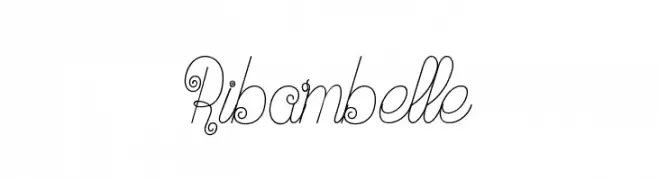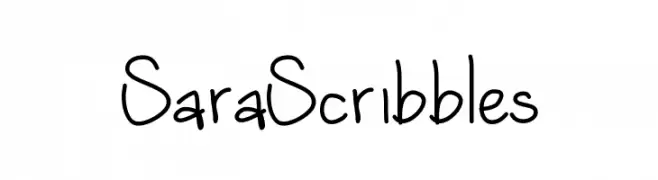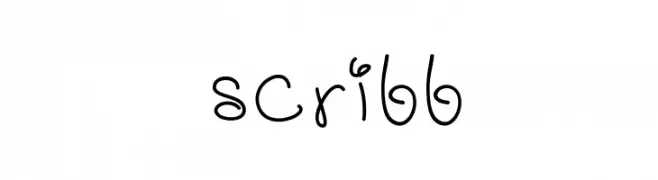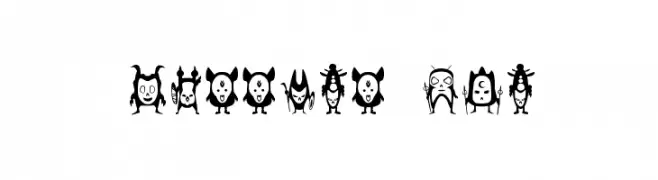
A distressed, grunge-style font with uneven edges and a hand-drawn look.
Ornamental font with tribal and geometric motifs, ideal for decorative use.
A playful, handwritten font with rounded, flowing letters and a casual style.
A playful handwritten font with a casual and friendly vibe.
A decorative dingbat font of whimsical warrior and tribal characters.
An ornate, whimsical font with intricate swirls and loops, reminiscent of hand-drawn calligraphy.
Cartoonish dingbat font with illustrated characters and objects.
A bold, high-contrast serif font with a modern yet classic appeal.
A classic serif font with a modern twist, offering elegance and readability.
A modern, geometric font with bold, striped patterns and angular forms.